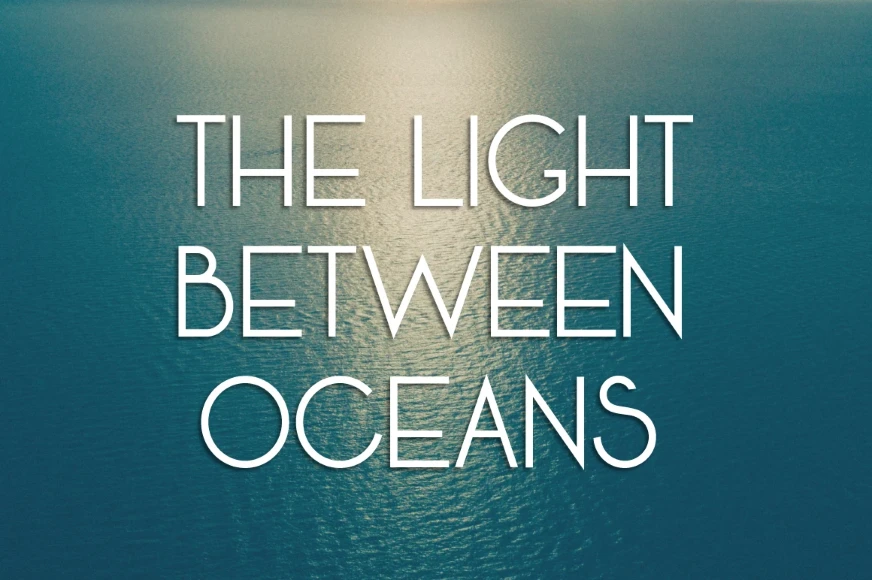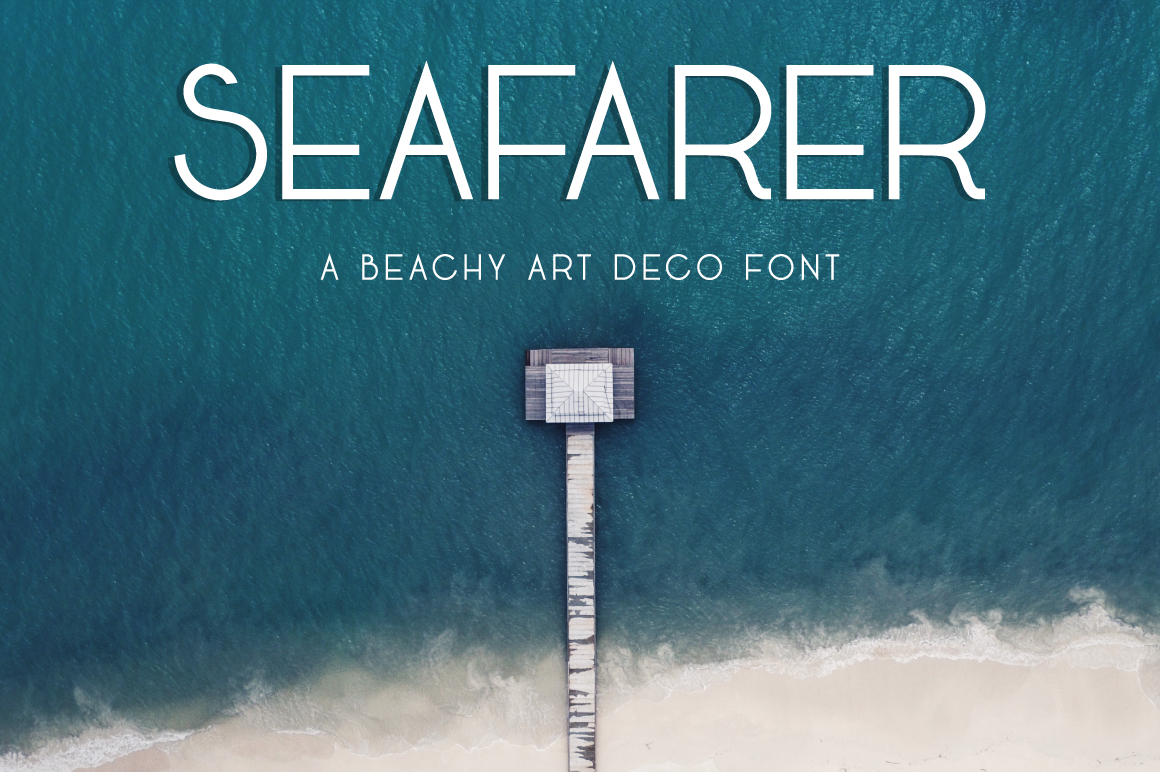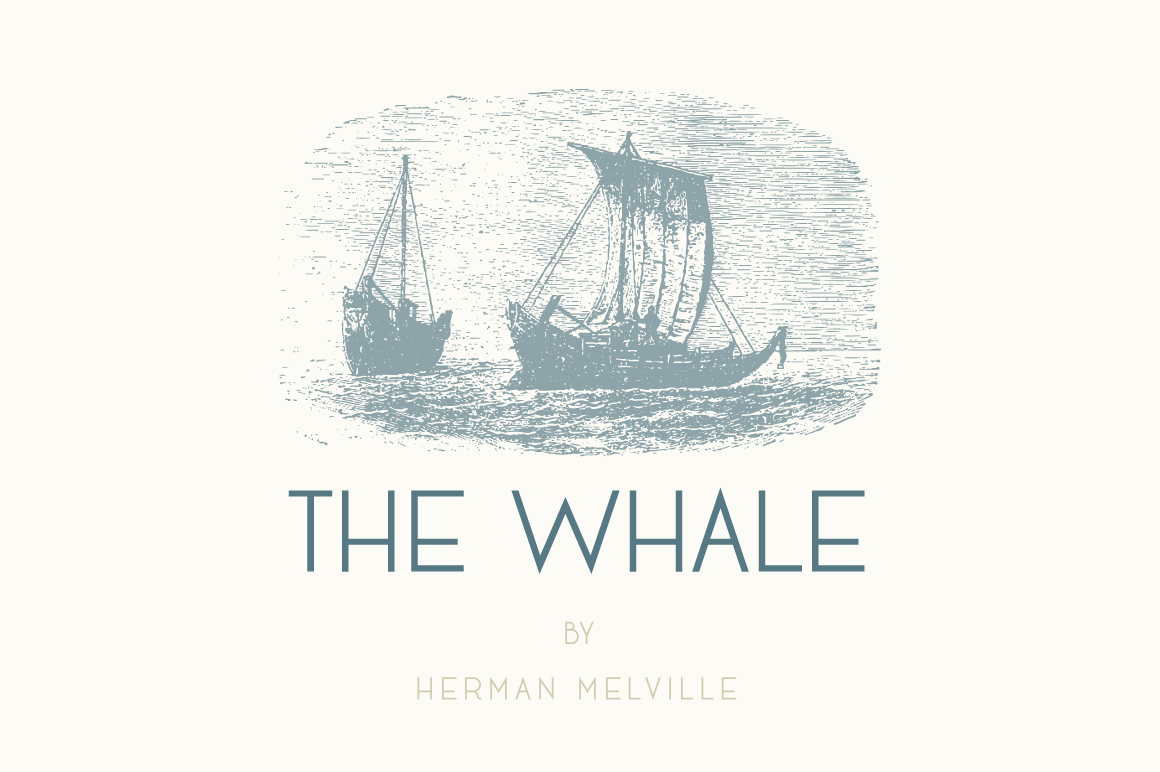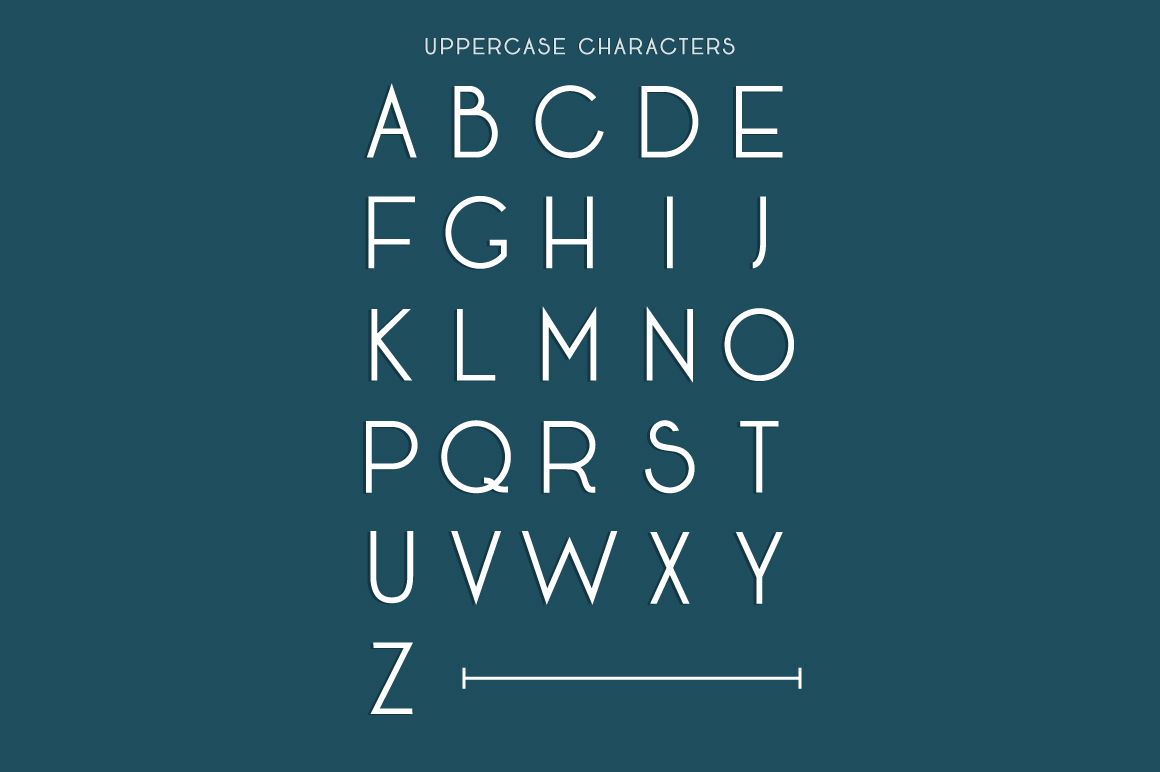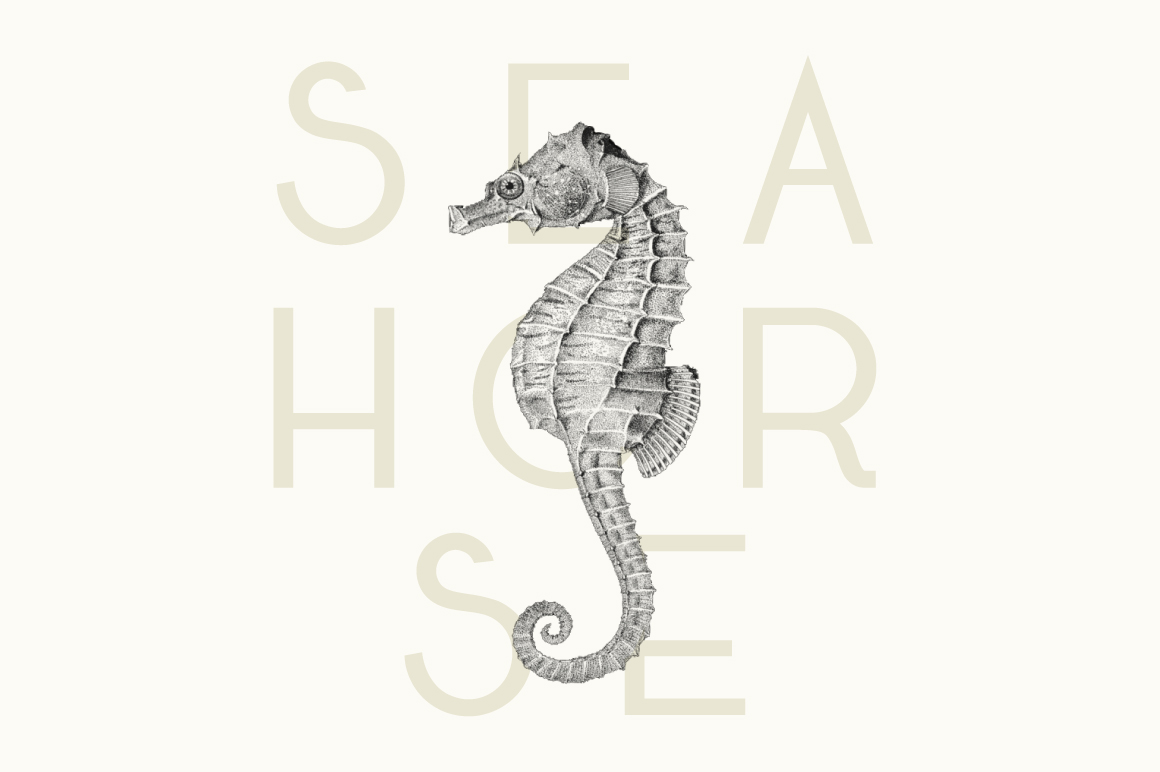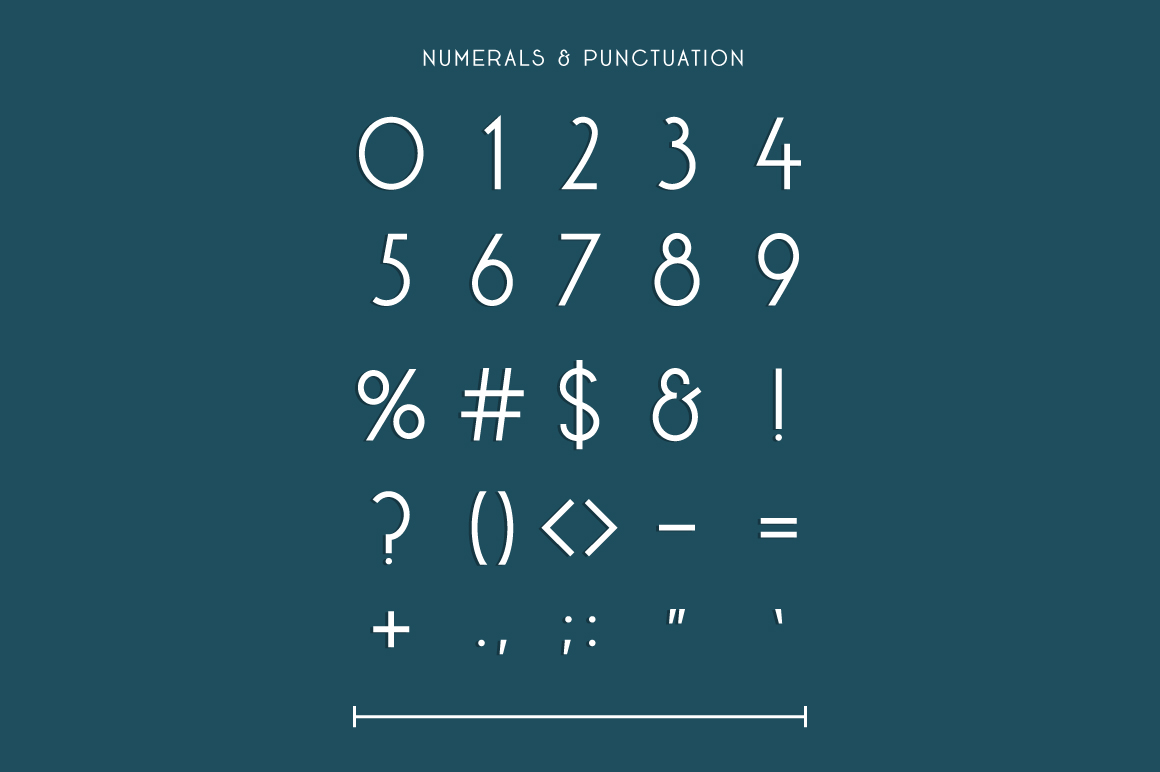
Seafarer
By Josh Ownby
Seafarer Bold
Seafarer Regular
Seafarer is a summer-ready geometric sans serif available in two weights. It’s casual demeanor is perfect for beach boardwalk designs, logos, summertime graphics, wedding invitations, social media brands, and more. Try out Seafarer today if you’re looking for a modern Art Deco sans serif to add vintage flair to any of your projects.